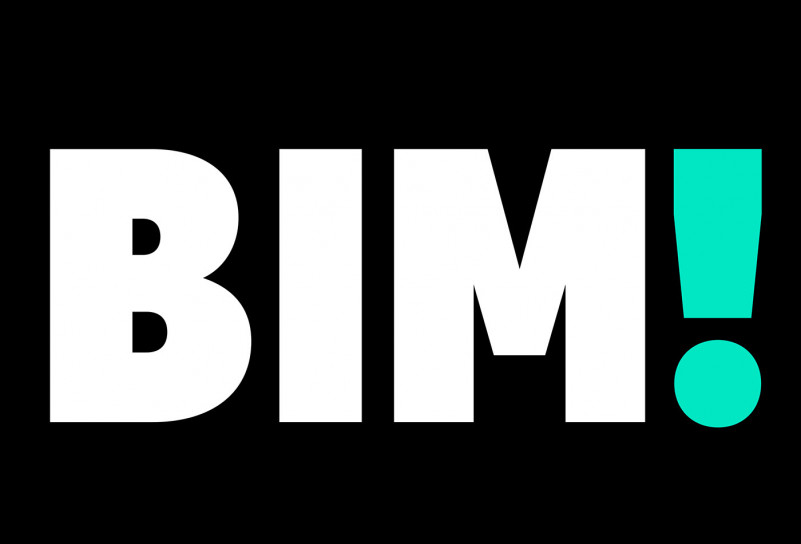
Alaska Font
Grab our new font, Alaska Sans Serif Font is a geometric typeface created by the Swiss type designer Ian Party and available at newglyph. Designing with this typeface gives you an endless variation of possibilities. It has styles going from “Ultra Condensed Thin” to “Ultra Expanded Extra Black” and their contrasted variants.